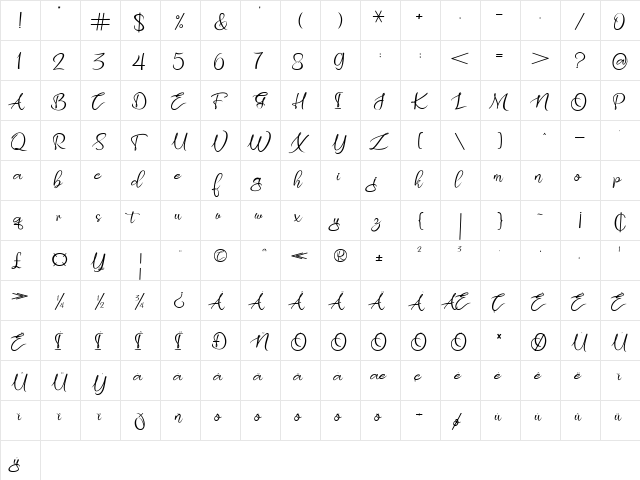
Butterly script Regular
| Foundry | Canoute Creative |
Design Context for Butterly script Typeface
Butterly script brings a calligraphic fluidity to the page — its connecting strokes and expressive curves give it an unmistakably human quality.
Font Pairing: Combine Butterly script with a simple geometric sans for maximum contrast — the tension between flowing curves and clean structure is a classic typographic pairing.
Pro Tip: Pair Butterly script with a clean sans-serif for supporting text. The contrast between fluid script and geometric structure creates an elegant typographic hierarchy.